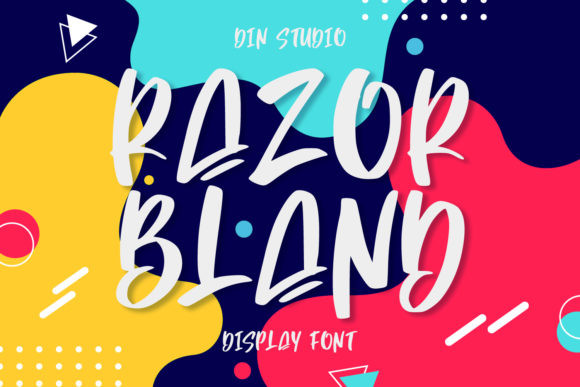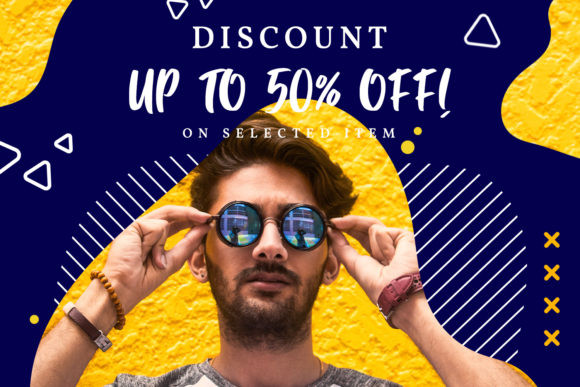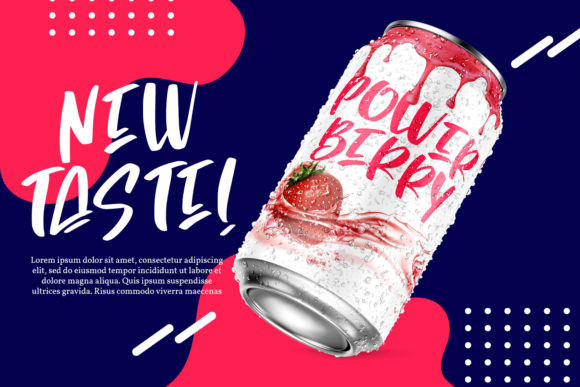
Razor Bland Font
Razor Bland is a classy handwritten font. Whether you’re looking for fonts for Instagram or calligraphy scripts for DIY projects, Razor Bland will turn any creative idea into a true piece of art!